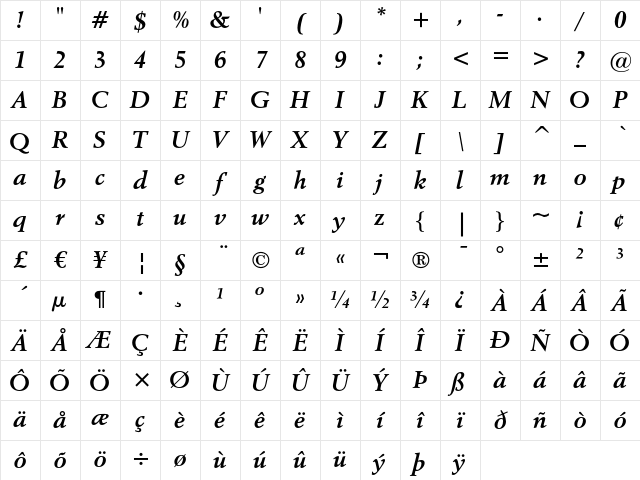
Revival 565 Bold Italic
Design Context for Revival 565
Revival 565 is a composed and adaptable typeface that performs quietly and consistently across a wide range of design contexts. The slanted form adds forward momentum and visual energy. Its bold stroke weight gives it real presence on the page.
Pro Tip: Use Revival 565 for emphasis, pull quotes, and subheadings where its slanted energy can add rhythm to the layout.